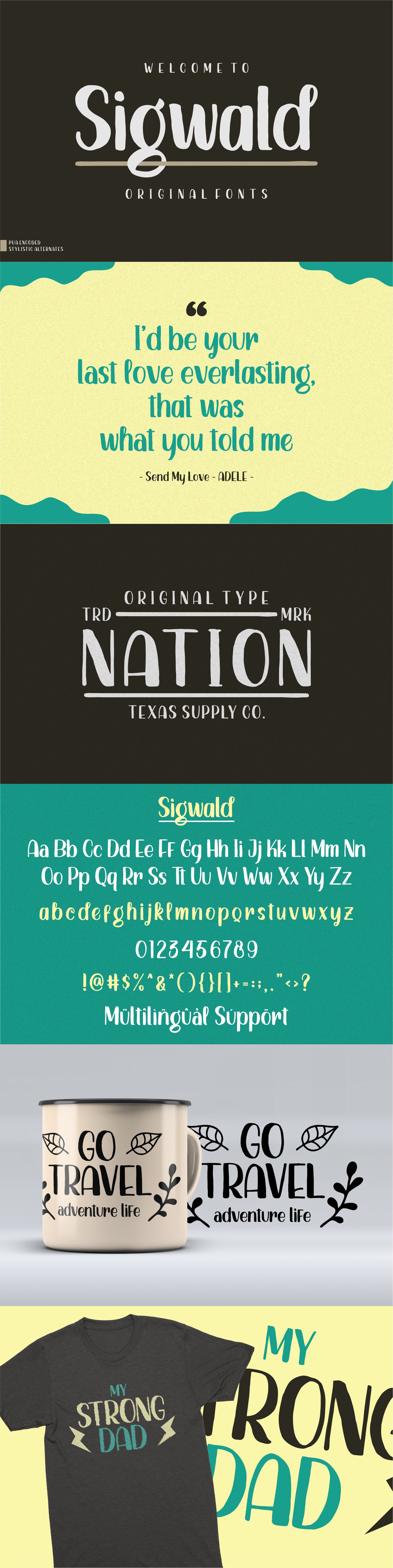
Sigwald - Handdrawn Fonts
Introducing Sigwald
Sigwald born from bold and fun style fonts. With many differenst swashes you need for the great work ever. That's available on other file from letter A-Z and a-z.
Versatile for design poster, logo, branding, label, quote, headline profil, banner, t-shirt design, packaging, magazine, brochure, and many more your amazing work with this fonts.